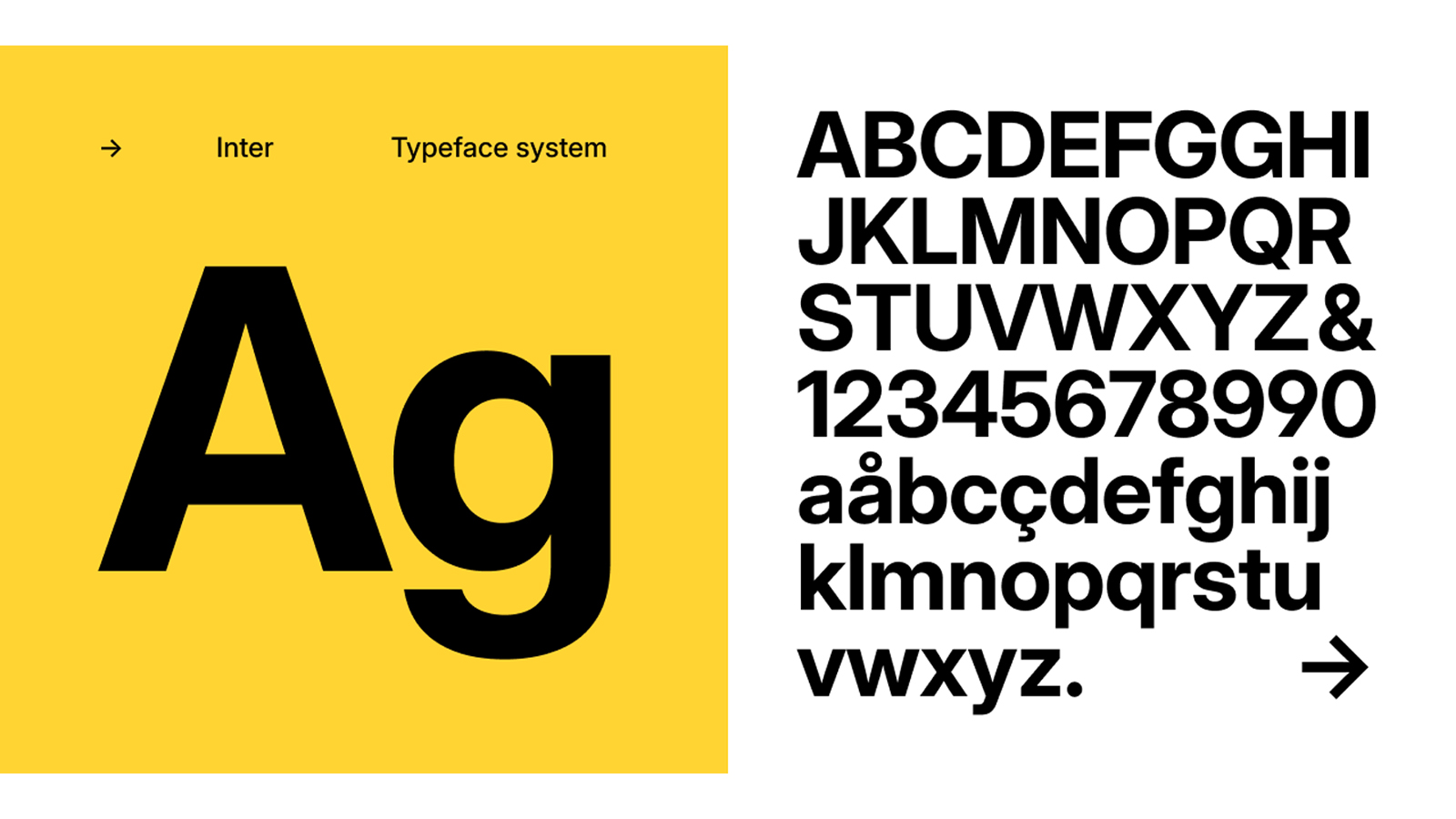
If it's wrong to love 'woke' fonts, I don't want to be right
The U.S. State Department’s font feud, Secretary of State Marco Rubio ditching Calibri in favor of Times New Roman, quickly became a surprisingly charged typographic story. What might seem like a minor design choice turned into a symbolic stand against so-called ‘woke’ fonts, as not for the first time this year, innocent things we love – Superman, Jaguar cars, New Zealand – have become a target.
The debate itself, whether a modern sans-serif like Calibri, adopted under a Biden-era accessibility policy, counted as a DEI initiative taken too far, sounds absurd outside design circles. Heck, it sounds absurd just writing that sentence. But it shows just how much people project values, identity, and even politics onto the shapes of letters.
I love fonts like Inter or Circular for one reason: they’re clean, readable, and inclusive design. Personally, I think these kinds of fonts, having worked in print and now online, I welcome readable, flexible type. As this battle no one saw coming escalates, let's take a breather to celebrate 'woke' fonts (take the poll below).
These are fonts that work across media and can be easily read in many languages and by all. Oh, and they're open-source by nature, making them free to use and rework, which is, well… horrific. Right? Their very accessibility has earned them the label of ‘woke’, which is either an insult or a badge of honour, depending on which culture war trench you're sunk into.
The kind of fonts that can be labelled are those designed to be easily read and used, and have a combination of traits: rounded terminals that feel friendly rather than aggressive, open-source licensing that signals community-mindedness, and tall lowercase letters for accessibility. None of these qualities has anything to do with politics; they’re just good design.
Fonts don’t pick sides, but they do shape how information feels and how people connect with ideas. In 2025, when even a pair of Sydney Sweeney's jeans can spark cultural wars, a perfectly readable font somehow becomes another battlefield.